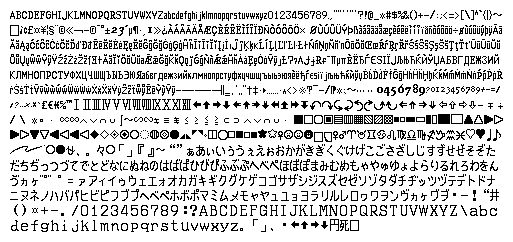
Altima
Altima - a Final Fantasy Tactics pixel font.
Altima is a mixed serif/sans-serif pixel font recreation based on the original main text font appearing in the Sony PlayStation video game Final Fantasy Tactics, developed by Square and released by Square & Sony in 1997.
The character set of this font was greatly expanded with the full hiragana and katakana sets from the Japanese version as well as countless additional special characters, diacritic variants, unique glyphs and the like, each one of them designed to match the spirit and style of the original design.
942 characters total
Complete original Japanese hiragana and katakana character sets
Countless additional special characters, zodiac signs, etc.